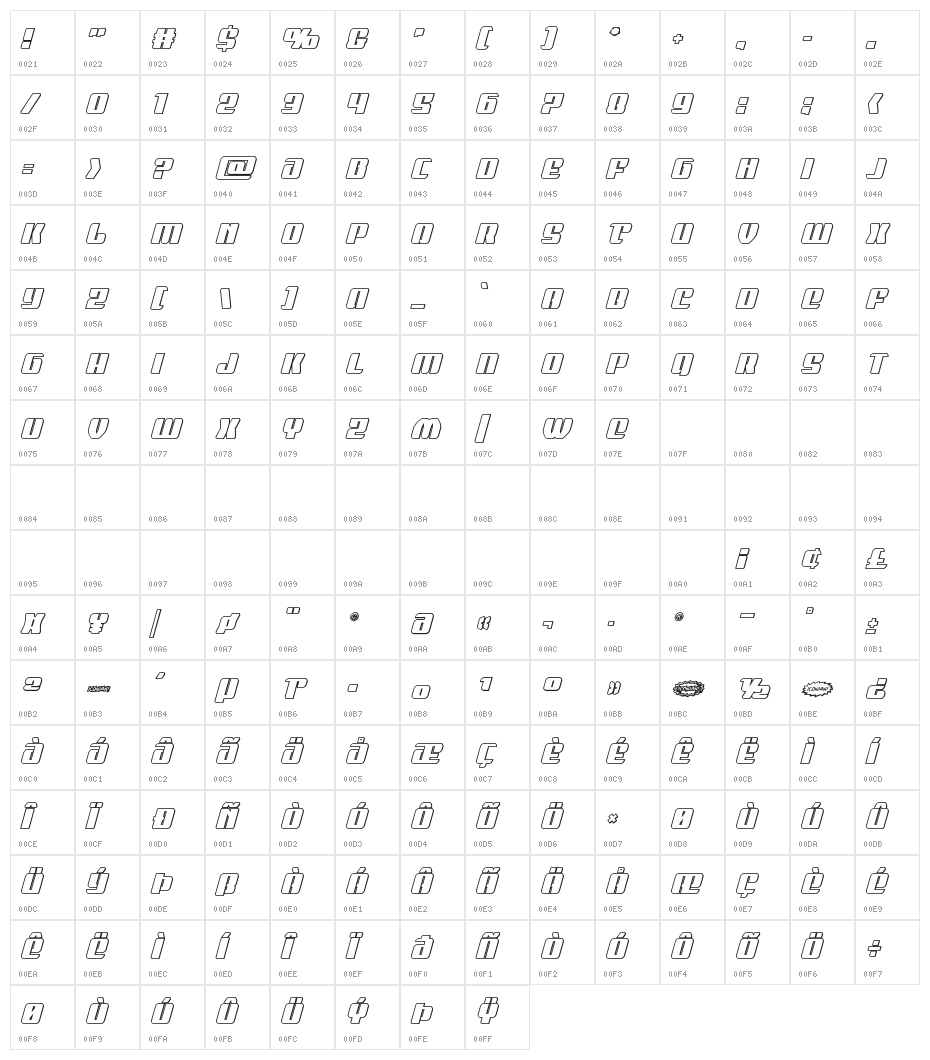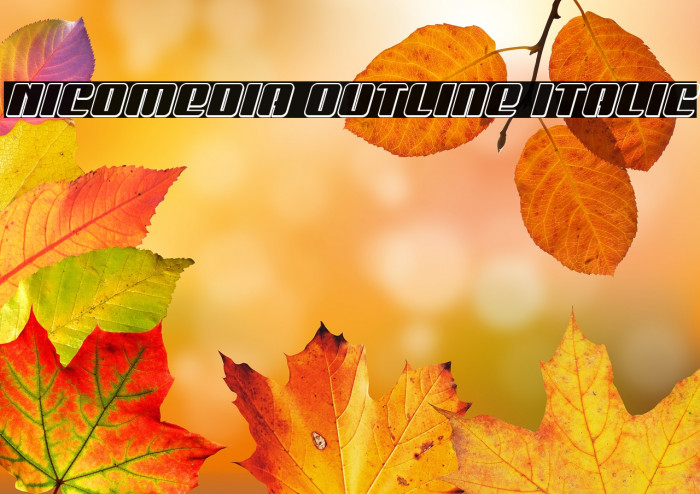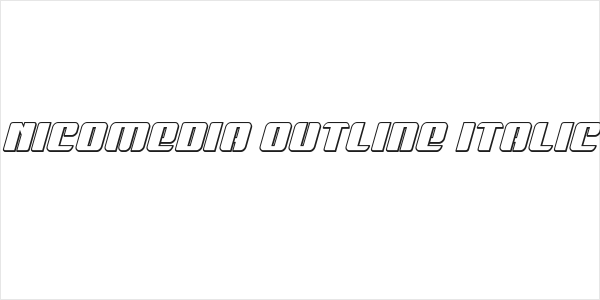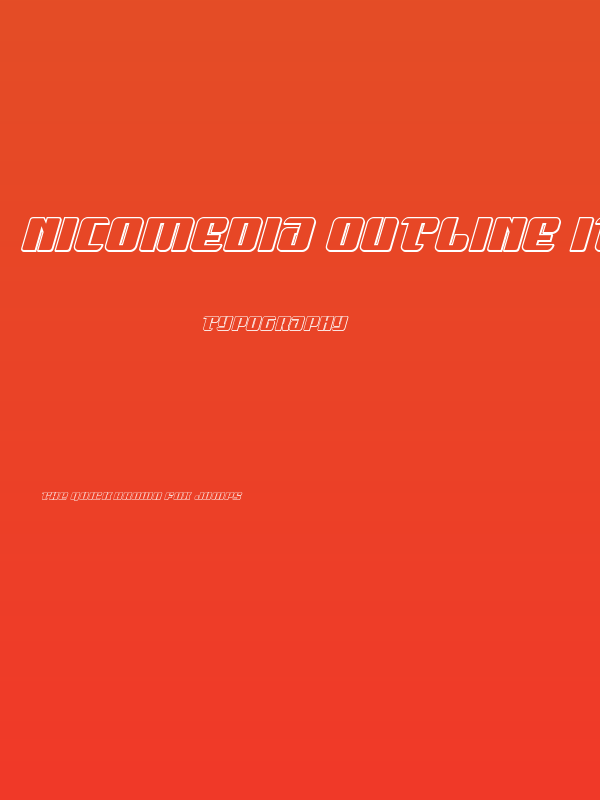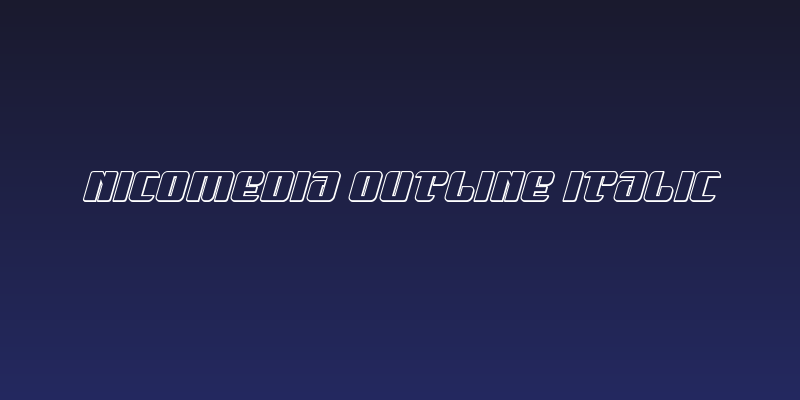
Nicomedia Outline Italic Font
Nicomedia Outline Italic Description
This font features a bold, outlined style with a distinct italic slant, giving it a dynamic and modern appearance. The characters are uniformly bold, with a consistent stroke width that creates a cohesive look across both uppercase and lowercase letters. The outline effect adds a layer of depth, making the text stand out, while the italic angle introduces a sense of movement and energy. The numbers and special characters maintain the same stylistic elements, ensuring uniformity throughout. This font's design is particularly eye-catching, making it suitable for attention-grabbing headlines or logos.